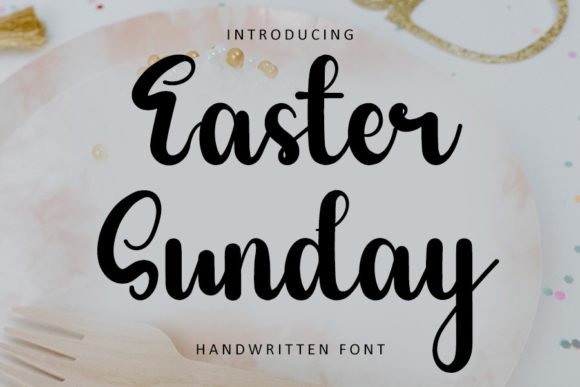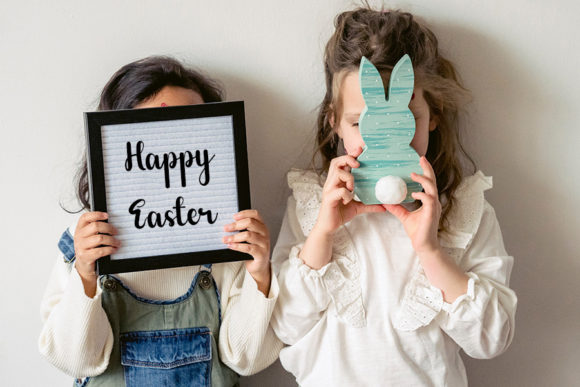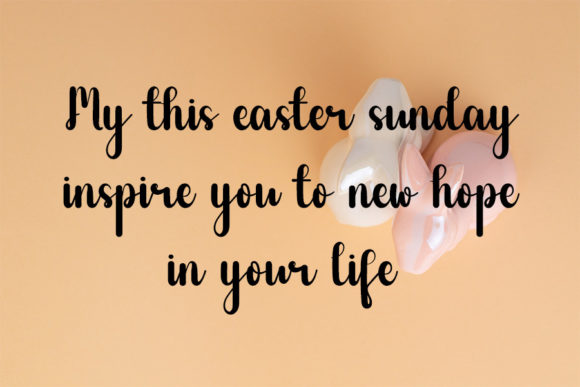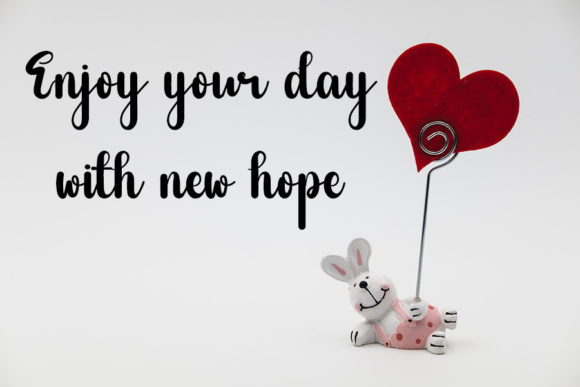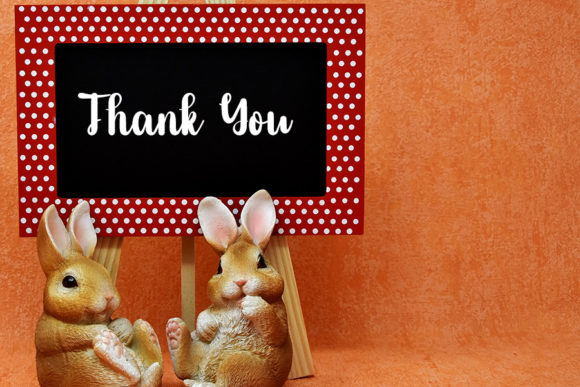
The Perfect Blend of Timeless Elegance and Modern Flair
Do you remember the feeling of sitting at your desk, surrounded by blank paper and endless possibilities? The creative spark is lit, and your imagination begins to run wild. This is the moment when the perfect font can elevate your project from ordinary to extraordinary.
Enter the Easter Sunday Font, a stylish handwritten font that embodies the perfect blend of contemporary atmosphere and timeless classic calligraphy. Its balanced and varied design makes it an invaluable tool for designers seeking to add a touch of sophistication to their work. Whether you’re a seasoned pro or just starting out, the Easter Sunday Font is sure to inspire your creativity and take your projects to the next level.
Easter Sunday Font Key Features
- Font Style: Easter Sunday is a handwritten font with a playful and whimsical feel, ideal for creative projects and designs.
- Unique Characteristics: Easter Sunday features a distinctive, hand-drawn aesthetic with subtle imperfections, giving it a personal and organic feel.
Easter Sunday Font Review
Overall, I found the Easter Sunday Font to be a charming and playful addition to any design project. ✨ Its unique blend of whimsy and elegance makes it perfect for spring-themed or Easter-inspired designs.
The font’s individual characters are well-designed, with intricate details and subtle flair. ✨ The ‘A’ and ‘e’ characters are particularly notable, with elegant curves that evoke a sense of classic sophistication. The font’s overall flow is smooth and easy to read, making it suitable for a wide range of applications.
While the Easter Sunday Font is a great addition to any design project, there are a few limitations to consider. ⚠️ One of the main drawbacks is its limited character set, which may not be suitable for long-form text or complex documents. Additionally, the font’s design may not be suitable for formal or professional applications, as it can come across as somewhat playful and whimsical.
- Limited character set may not be suitable for long-form text
- Not suitable for formal or professional applications
Overall, the Easter Sunday Font is a fun and charming addition to any design project. While it may have its limitations, it’s perfect for spring-themed or Easter-inspired designs where a playful and whimsical touch is needed.
The Easter Sunday font is ideal for creating Easter-themed graphics, invitations, and decorations.
Use it to add a touch of springtime charm to your designs.
Alternatives to Easter Sunday Font
Great Vibes is a beautiful, elegant script font perfect for adding a touch of sophistication to your designs. It features flowing connections between letters and a relaxed feel, making it ideal for wedding invitations, event promotions, and other special occasion graphics. Compared to Easter Sunday Font, Great Vibes has a more refined and polished appearance, making it suitable for a wider range of applications.
Alex Brush is a handwritten font with a personal, artistic feel. It’s perfect for designers who want to add a touch of warmth and personality to their work. Compared to Easter Sunday Font, Alex Brush has a more rustic and eclectic appearance, making it ideal for creative projects, social media graphics, and other applications where a unique, handmade feel is desired.
Carolyna Pro is a modern, elegant script font with a touch of sophistication. It’s perfect for designers who want to add a touch of glamour and luxury to their work. Compared to Easter Sunday Font, Carolyna Pro has a more refined and polished appearance, with a focus on elegance and sophistication, making it suitable for high-end branding, advertising, and other applications where a premium feel is desired.